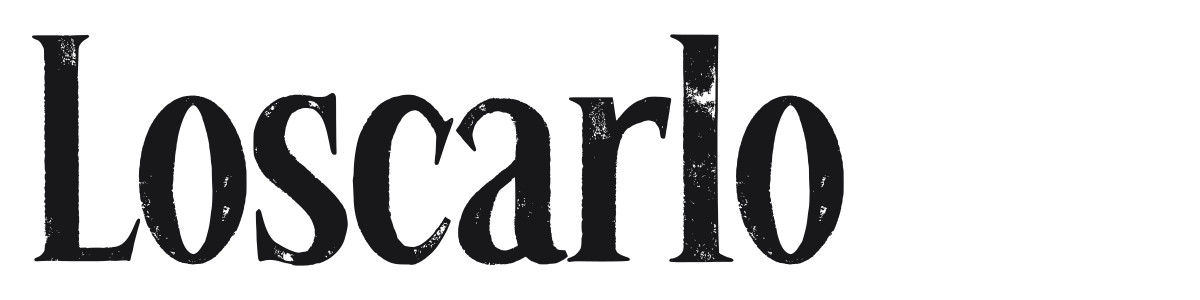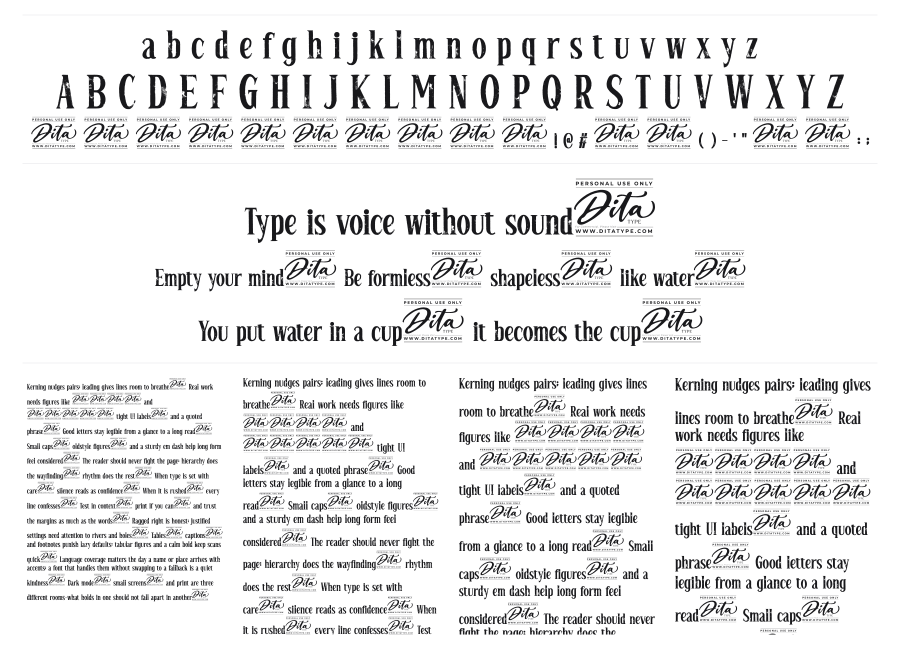
Loscarlo
Loscarlo is a condensed distressed serif built on a Didone skeleton with extreme stroke contrast and a heavy letterpress-worn texture throughout. The tall, narrow proportions and dramatic hairline-to-stem ratio give it real presence at large sizes, while the gritty surface adds raw, handcrafted energy. It sits in an interesting space between high-fashion editorial and underground print culture.